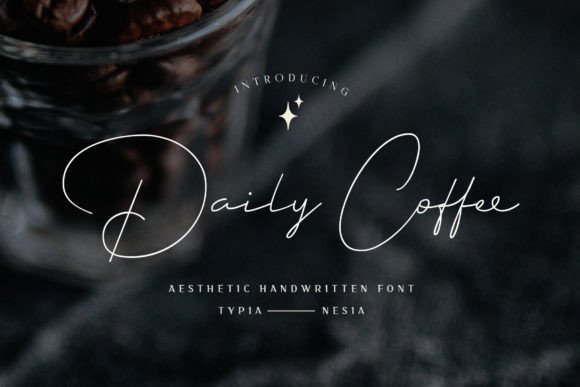
Journey into the world of Daily Coffee Font, a stunning handwritten signature font that will add a touch of elegance and charm to your creative projects. Its unique flow and natural style capture the essence of personal expression, making it a perfect choice for those seeking a font that speaks to the heart.
Immerse yourself in the possibilities that await with Daily Coffee Font. From wedding invitations to social media graphics, this font will elevate your designs with its graceful curves and effortless charm. Let your words dance across the page, carrying with them a sense of warmth and authenticity.
With Daily Coffee Font, you'll discover a font that's not just versatile, but truly captivating. Its handwritten style lends a personal touch to any project, whether you're creating greeting cards, branding materials, or stunning blog designs. The possibilities are endless.
But what truly sets Daily Coffee Font apart is its ability to evoke emotion. Its elegant strokes and subtle details create a sense of connection that resonates with your audience. Let your words come alive with Daily Coffee Font, capturing the attention of readers and creating a lasting impression.
Whether you're designing wedding invitations, creating social media posts, or crafting heartfelt greeting cards, Daily Coffee Font is the perfect choice for adding a touch of magic to your creative endeavors. Its unique charm and emotional appeal will leave a lasting impression on those who encounter it. Make a statement with Daily Coffee Font, and let your creations speak volumes.